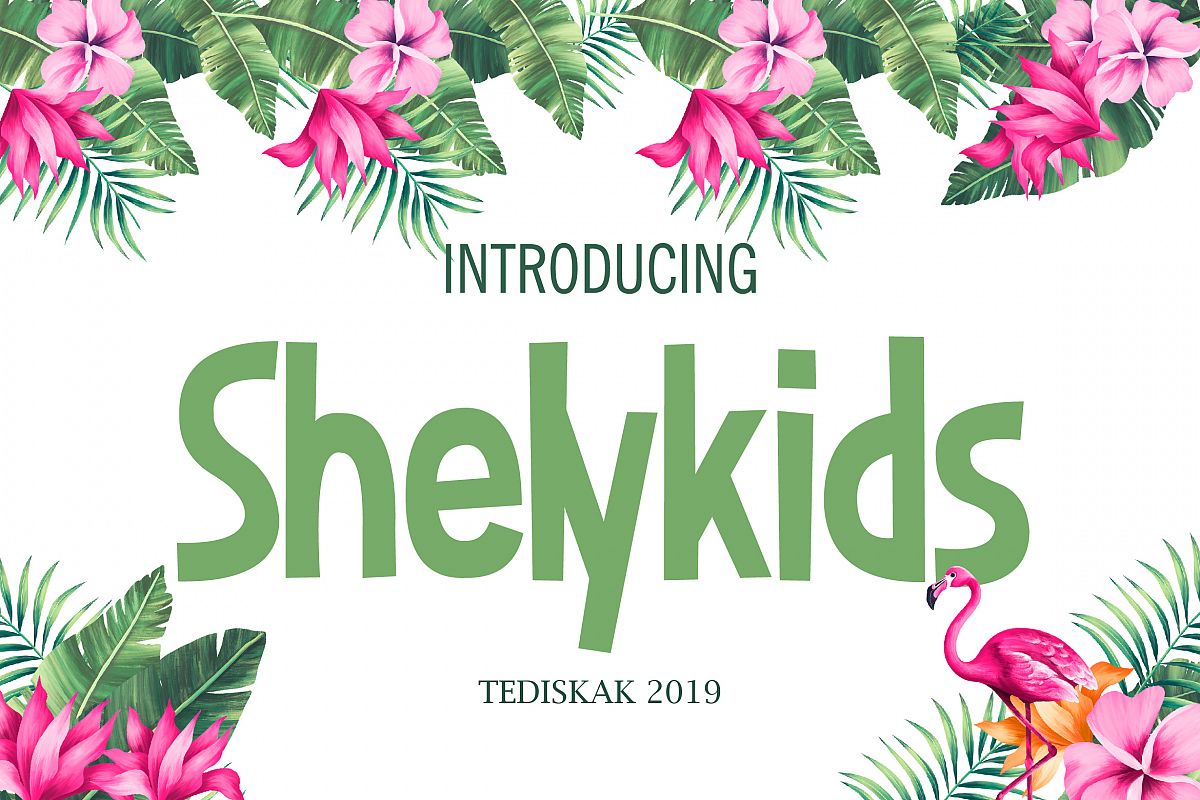
Shelykids
Introduce, this is our newest product, we call it
this product is shelykids
Shelykids Font is a modern font, with a touch
sweet and beautiful shapes on each letter.